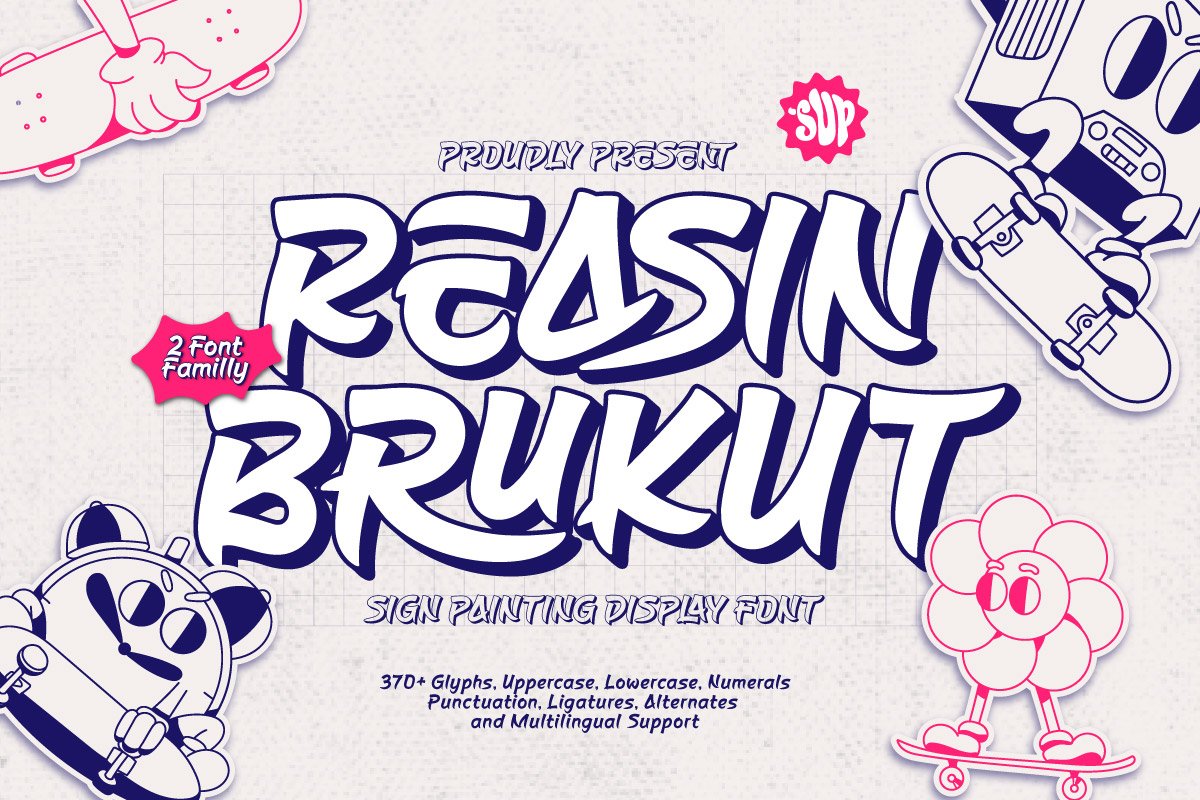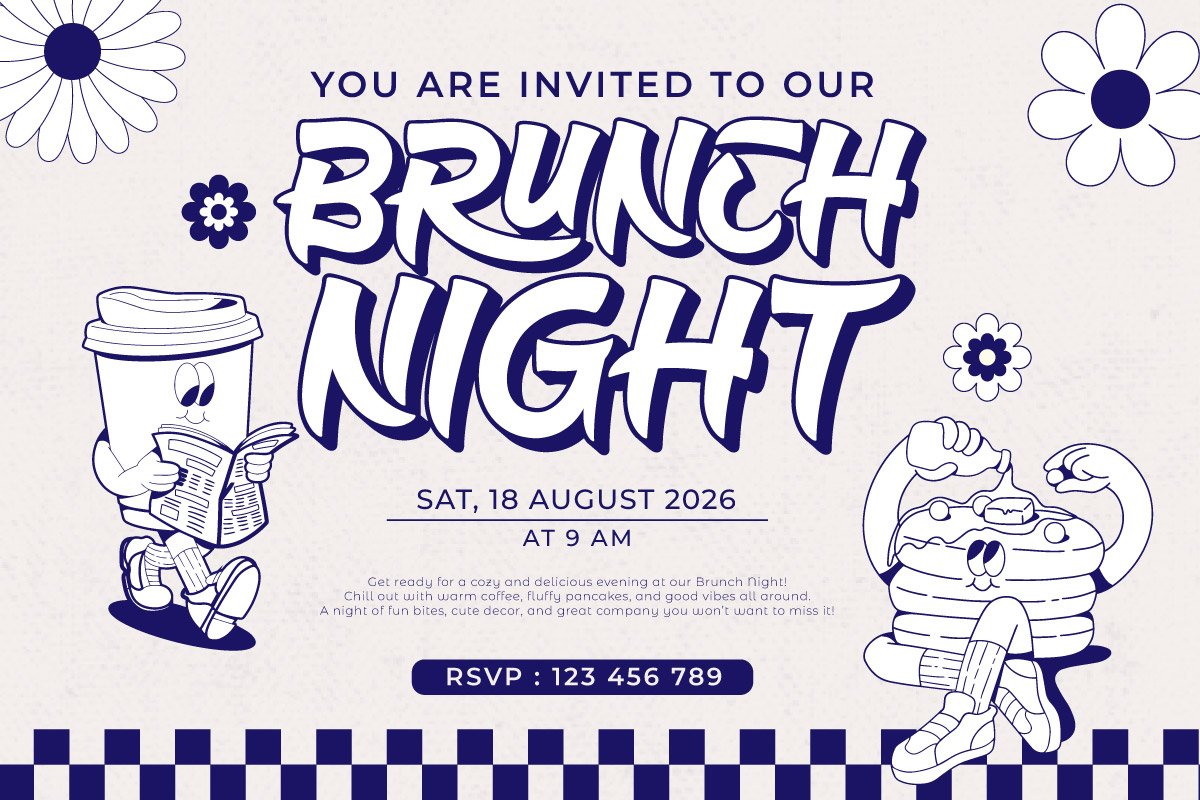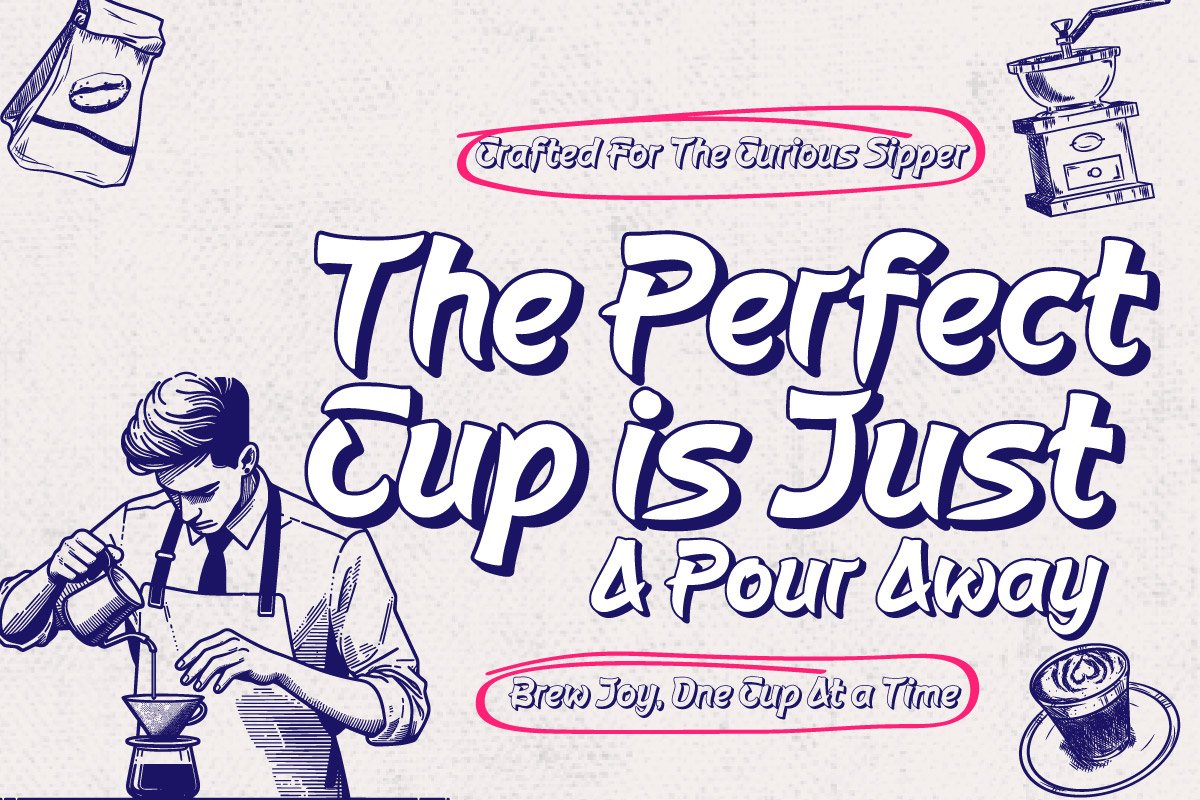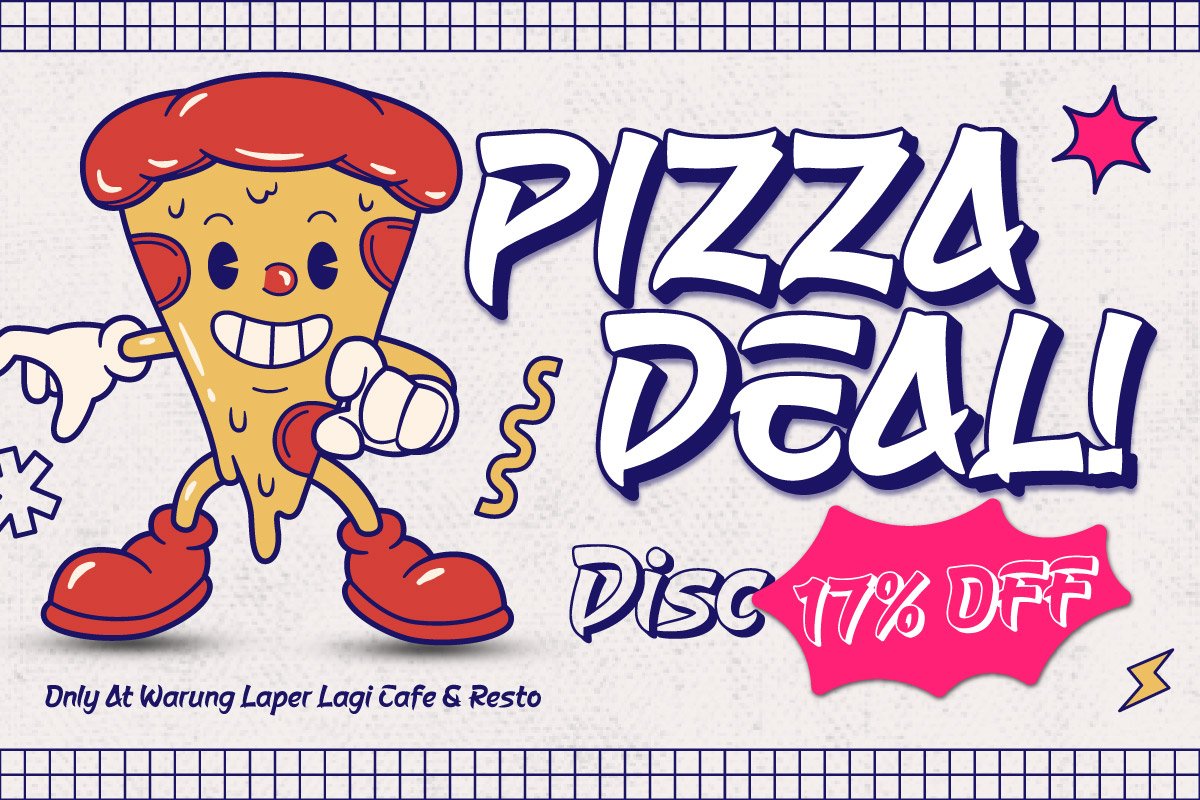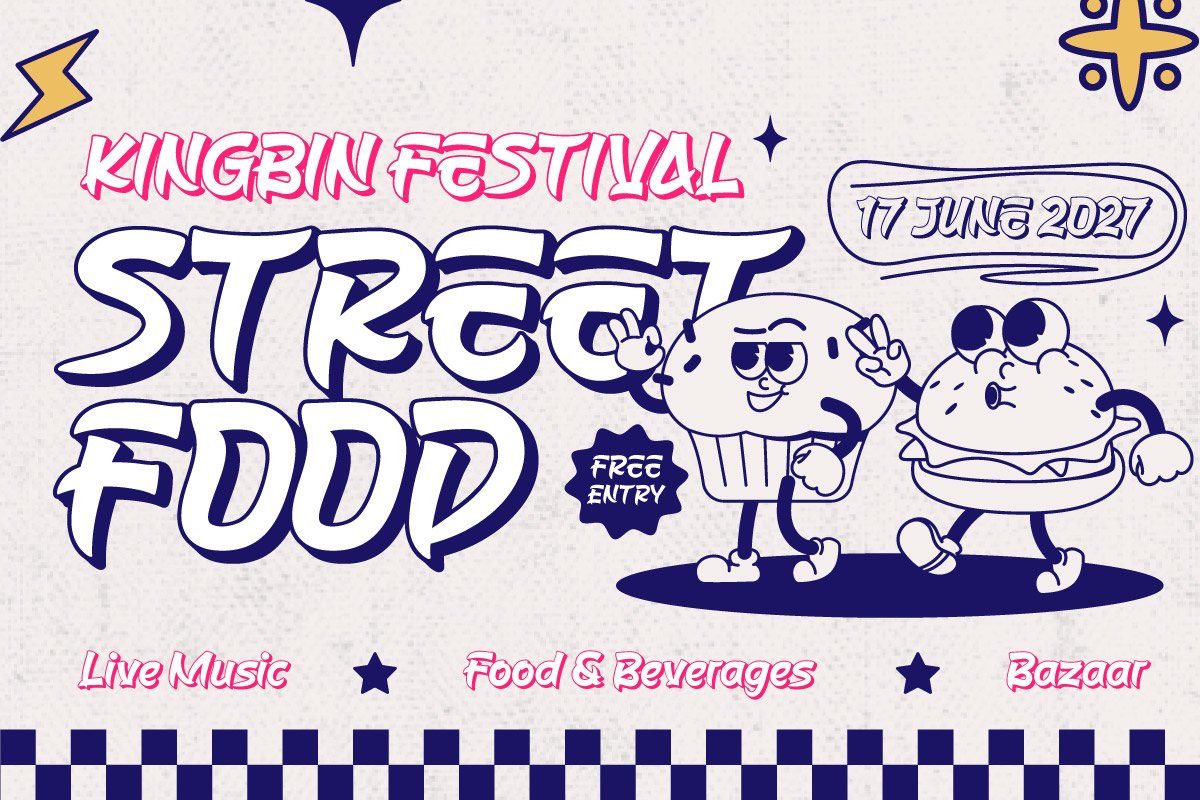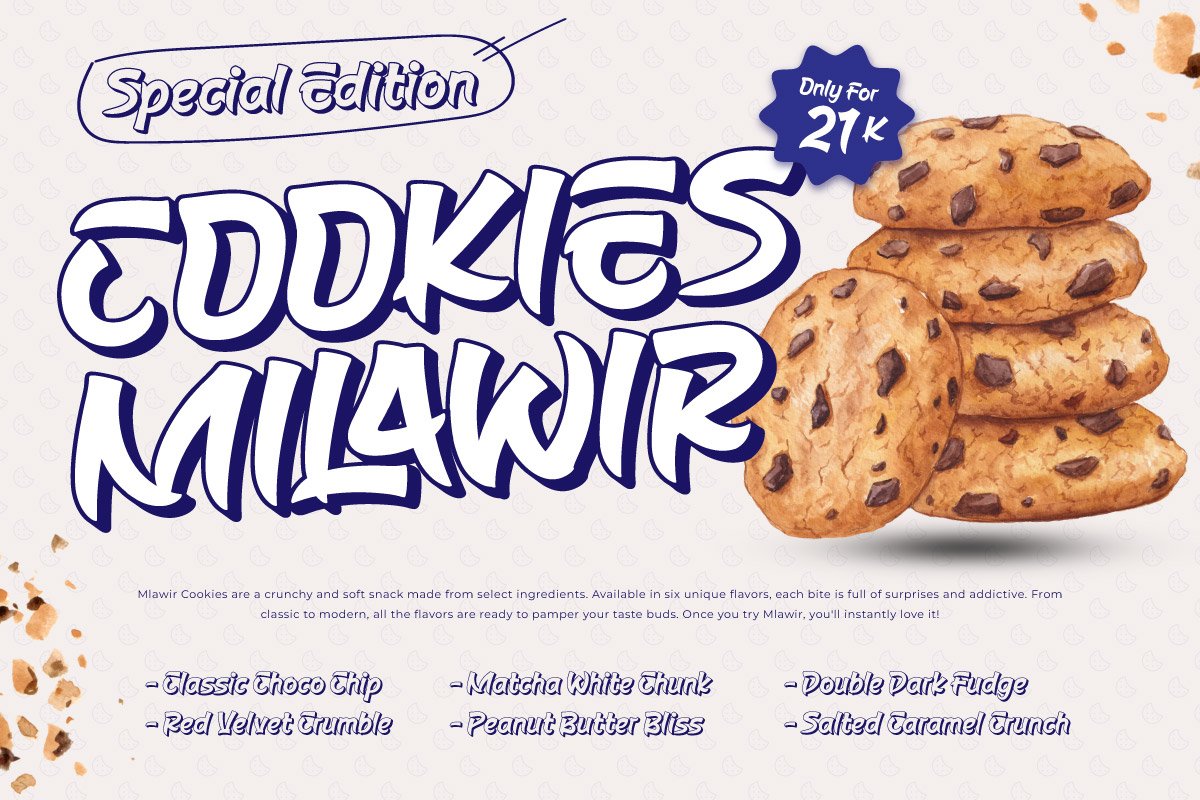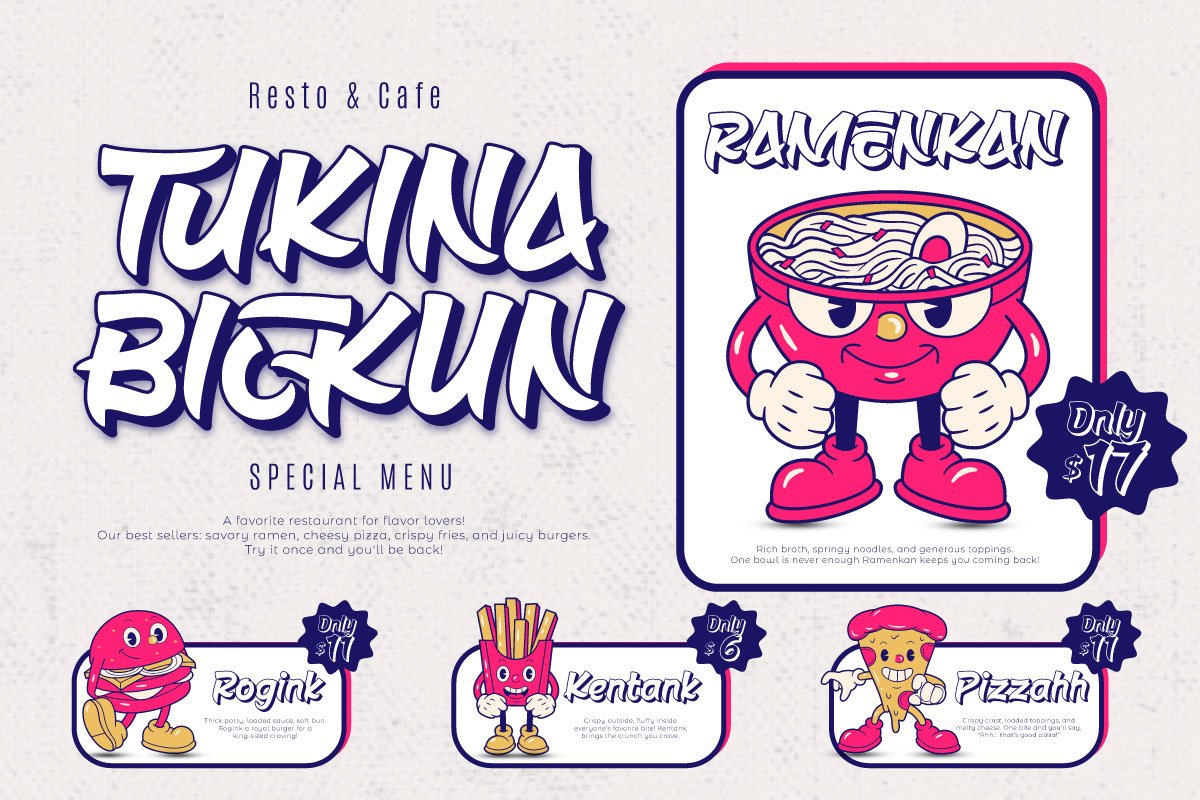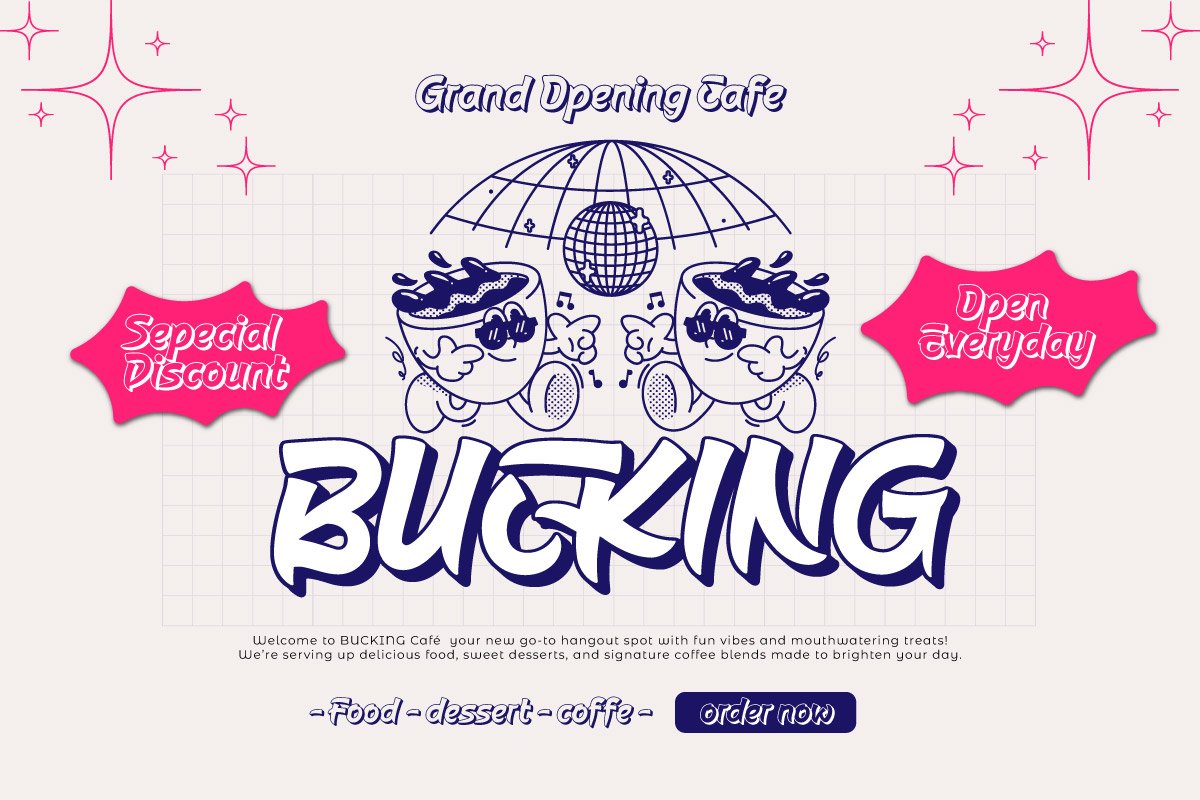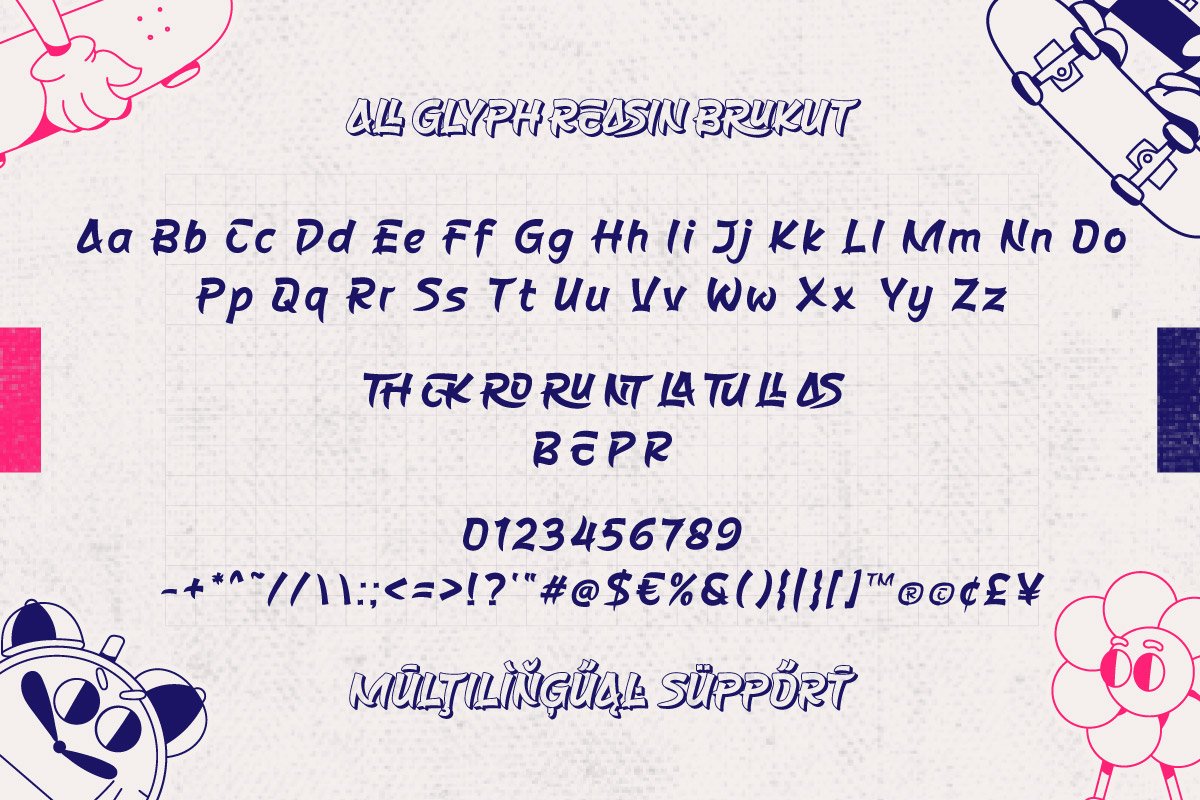
Reasin Brukut – Sign Painting Display Font
Reasin Brukut is a bold and expressive sign painting display font that blends retro charisma with hand-painted authenticity. Designed to mimic classic signage, this font family includes Regular, Blury, and Shadow styles—giving you the tools to craft eye-catching designs with a handcrafted feel.
The Regular style presents confident, dynamic brush strokes suitable for branding, poster titles, or headlines. The Blury style introduces a soft, atmospheric edge, ideal for vintage effects or dreamy aesthetics. Meanwhile, the Shadow style offers dimensional depth, helping your typography jump off the page.
Whether you’re designing restaurant menus, storefront signs, beverage packaging, or nostalgic branding, Reasin Brukut brings personality and visual impact that stands out in both print and digital formats.